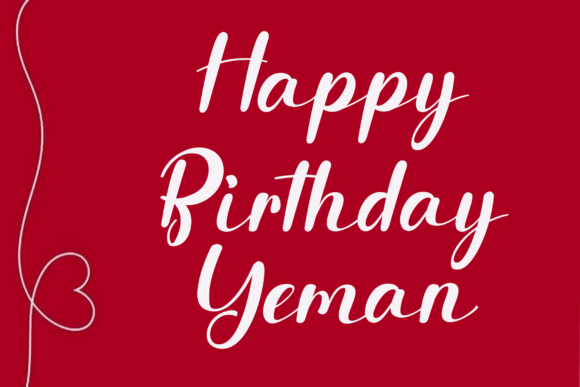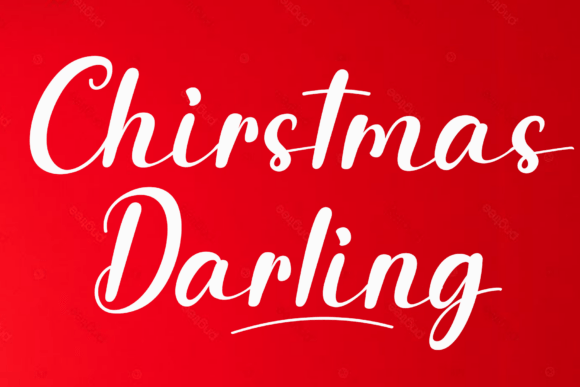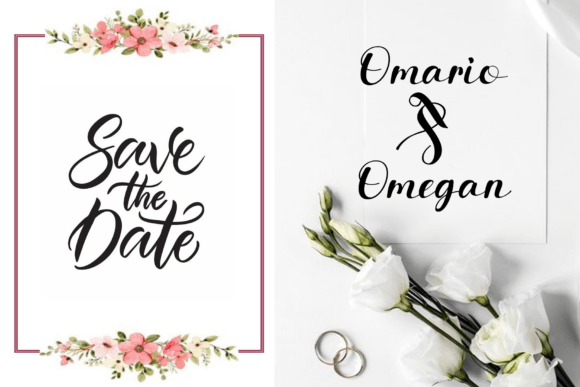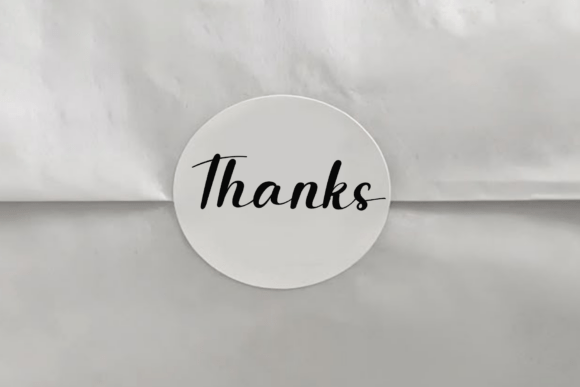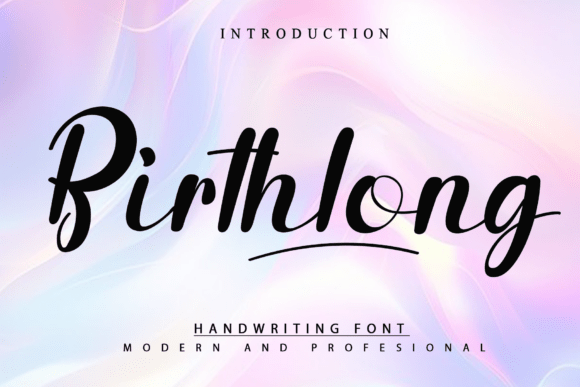
Introducing Birthlong Font: Elevate Your Designs with Timeless Elegance
In the world of typography, a font can make or break the aesthetic of a project. For designers and crafters seeking a touch of sophistication and elegance, the Birthlong Font is an exceptional choice. This stylish handwritten font boasts a contemporary atmosphere, impeccable form, and a balanced, varied design that is sure to enhance the beauty of any project.
Inspired by Timeless Classic Calligraphy
Birthlong Font draws inspiration from the classic calligraphy of yesteryear, infusing it with a modern twist. The result is a font that exudes a sense of refinement and poise, perfect for projects that demand a high level of sophistication. Whether you’re working on a branding campaign, a wedding invitation, or a packaging design, Birthlong Font is sure to impress.
Key Features of Birthlong Font
• Stylish Handwritten Design: Birthlong Font features a beautiful, handwritten design that adds a personal touch to any project.
• Contemporary Atmosphere: With its clean lines and modern aesthetic, this font is perfect for designers looking to create a fresh, contemporary look.
• Impeccable Form: The font’s impeccable form ensures that it remains legible and visually appealing, even at smaller sizes.
• Balanced and Varied: Birthlong Font features a range of characters and glyphs, allowing for a high level of variation and creativity in your designs.
Birthlong Font is an incredibly versatile font that can be used in a wide range of projects, including:
• Branding and Logos: Create a lasting impression with a custom logo or branding campaign that showcases your unique identity.
• Wedding Invitations and Stationery: Add a touch of elegance to your wedding invitations, save-the-dates, and other stationery with this beautiful font.
• Packaging Design: Elevate your product packaging with a sophisticated font that reflects your brand’s values and aesthetic.
• Digital Media: Use Birthlong Font in your digital media, such as social media graphics, blog posts, and email newsletters, to add a touch of sophistication and style.
Tips for Using Birthlong Font
To get the most out of Birthlong Font, consider the following tips:
• Experiment with Font Sizes: Birthlong Font looks great at a range of font sizes, from large headings to smaller body text.
• Play with Color: This font pairs well with a variety of colors, so don’t be afraid to experiment and find the perfect combination for your project.
• Mix and Match with Other Fonts: Birthlong Font can be paired with other fonts to create a unique and visually appealing design.
In conclusion, Birthlong Font is an exceptional choice for designers and crafters looking to add a touch of elegance and sophistication to their projects. With its stylish handwritten design, contemporary atmosphere, and impeccable form, this font is sure to enhance the beauty of any project. Whether you’re working on a branding campaign, a wedding invitation, or a packaging design, Birthlong Font is the perfect choice.